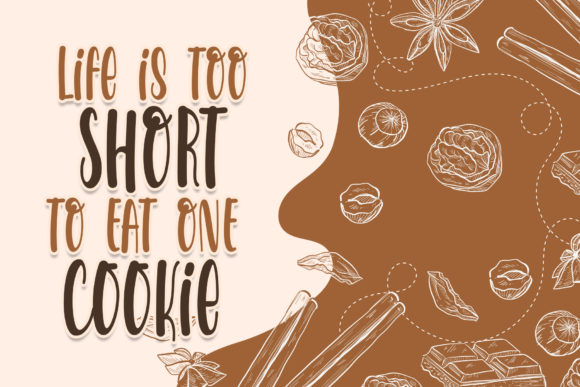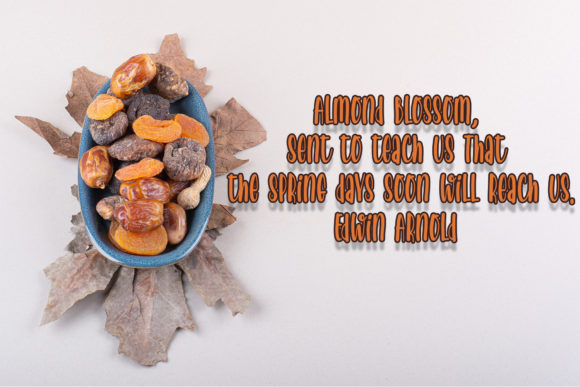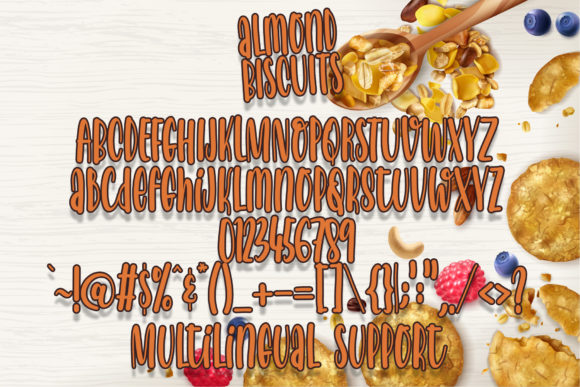
Introducing Almond Biscuits Font: The Sweetest Addition to Your Design Collection
Are you on the hunt for a font that adds a touch of whimsy and playfulness to your designs? Look no further than Almond Biscuits Font! This delightful handwritten font is sure to bring a smile to your face and a dash of personality to your creations. In this article, we’ll dive into the world of Almond Biscuits Font, exploring its features, uses, and why it’s a must-have for designers and crafters alike.
What is Almond Biscuits Font?
Almond Biscuits Font is a charming, handwritten font that’s perfect for adding a personal touch to your designs. Its playful and cute vibe makes it an excellent choice for a wide range of projects, from digital art and illustrations to craft projects, blog posts, and social media graphics. With Almond Biscuits Font, you can add a dash of sweetness to your creations and make them stand out from the crowd.
Key Features of Almond Biscuits Font
So, what makes Almond Biscuits Font so special? Here are some of its key features:
- Playful and Cute: Almond Biscuits Font has a lighthearted and whimsical feel that’s perfect for creating fun and engaging designs.
- Handwritten: This font has a beautiful, handwritten quality that adds a personal touch to your creations.
- Versatile: Almond Biscuits Font can be used for a wide range of projects, from digital art to craft projects and everything in between.
- Easy to Read: Despite its playful nature, Almond Biscuits Font is easy to read, making it perfect for use in body text and headings.
Uses for Almond Biscuits Font
Almond Biscuits Font is incredibly versatile, and its uses are endless! Here are some ideas to get you started:
- Digital Art: Add a touch of whimsy to your digital art with Almond Biscuits Font. Use it to create fun and colorful illustrations, graphics, and more.
- Craft Projects: Almond Biscuits Font is perfect for craft projects, such as making cards, gift tags, and other paper crafts.
- Blog Posts: Add a personal touch to your blog posts with Almond Biscuits Font. Use it to create eye-catching headings and titles that will draw in your readers.
- Social Media Graphics: Use Almond Biscuits Font to create engaging social media graphics that will help your posts stand out from the crowd.
Why Designers and Crafters Love Almond Biscuits Font
So, why do designers and crafters love Almond Biscuits Font? Here are just a few reasons:
- Unique and Playful: Almond Biscuits Font adds a unique and playful touch to designs, making them stand out from the crowd.
- Easy to Use: This font is incredibly easy to use, even for those who are new to design or crafting.
- Versatile: Almond Biscuits Font can be used for a wide range of projects, making it a valuable addition to any design or crafting collection.
In conclusion, Almond Biscuits Font is a must-have for designers and crafters looking to add a touch of whimsy and playfulness to their creations. With its playful and cute vibe, handwritten quality, and versatility, this font is perfect for a wide range of projects. So why wait? Add Almond Biscuits Font to your collection today and see the amazing outcomes for yourself!
Whether you’re a seasoned designer or a crafty beginner, Almond Biscuits Font is sure to delight. So go ahead, get creative, and let Almond Biscuits Font bring a smile to your face and a touch of sweetness to your designs!